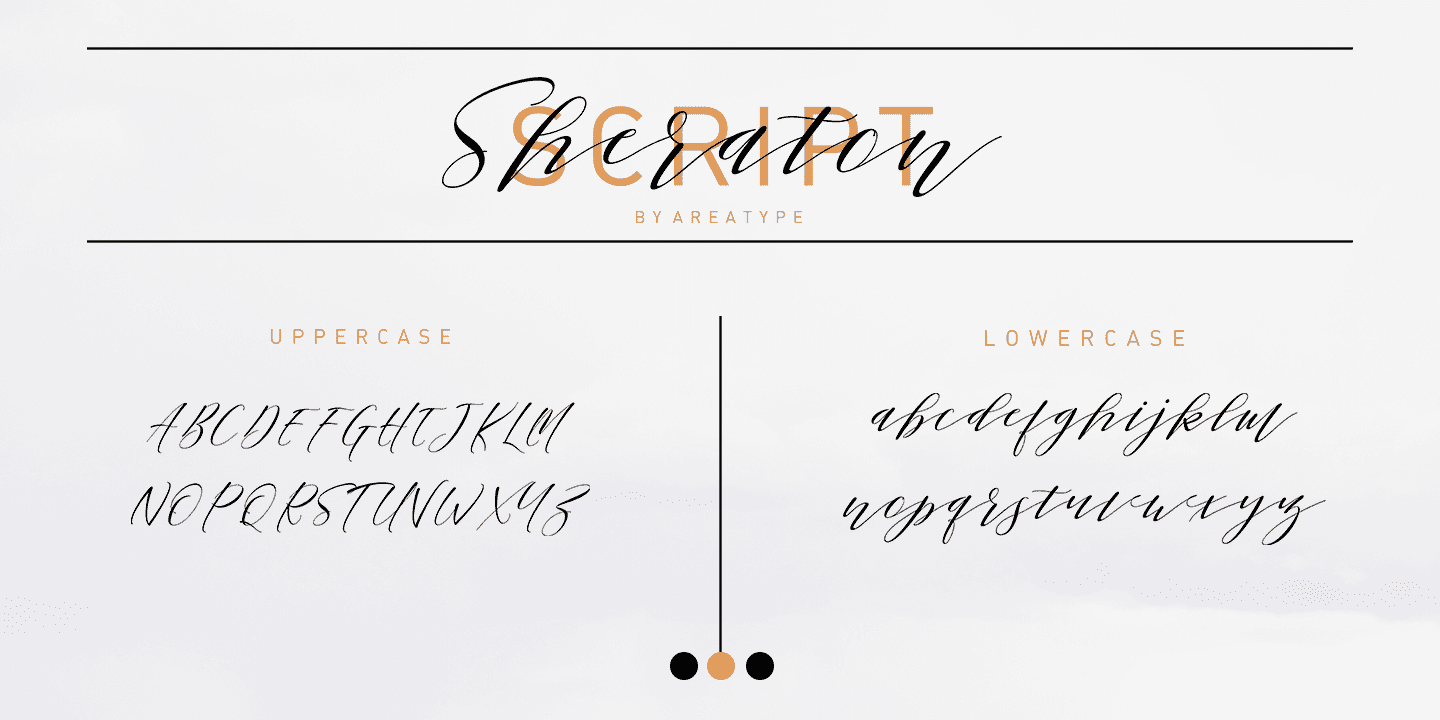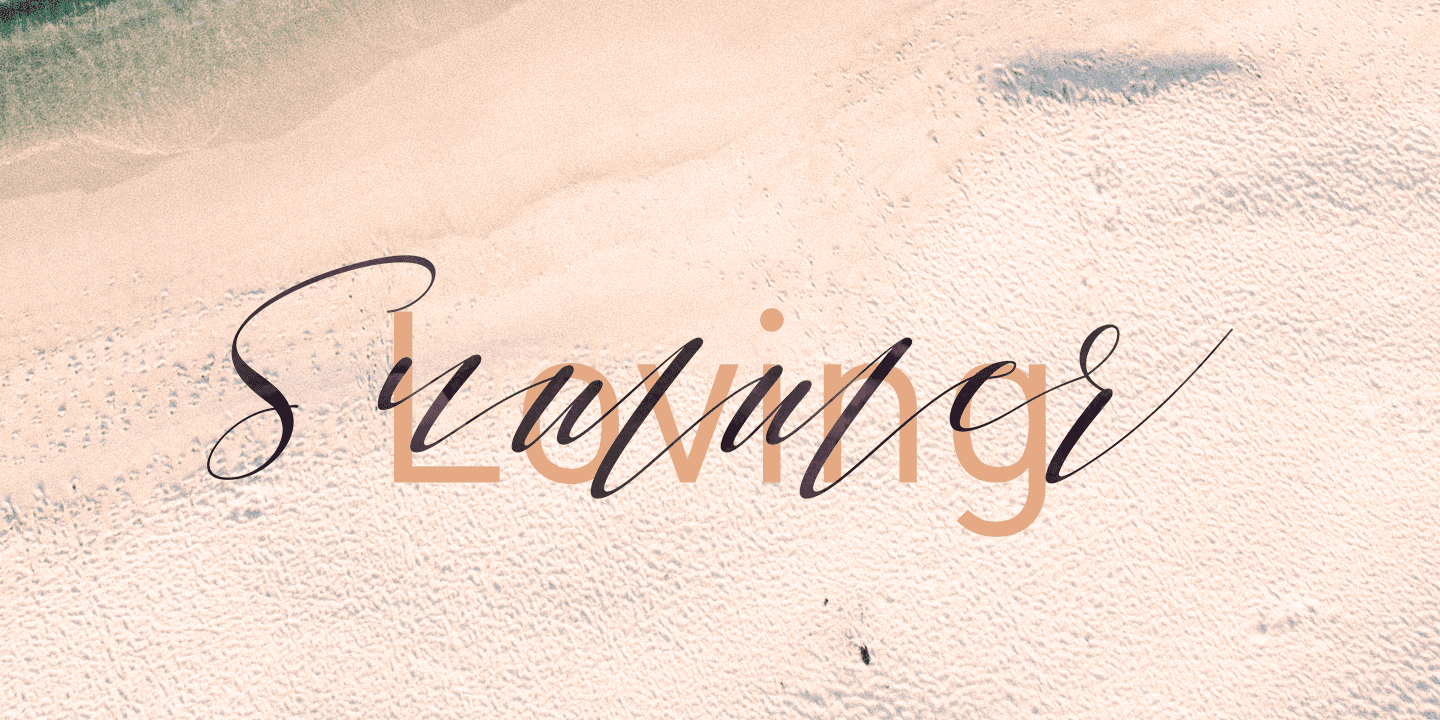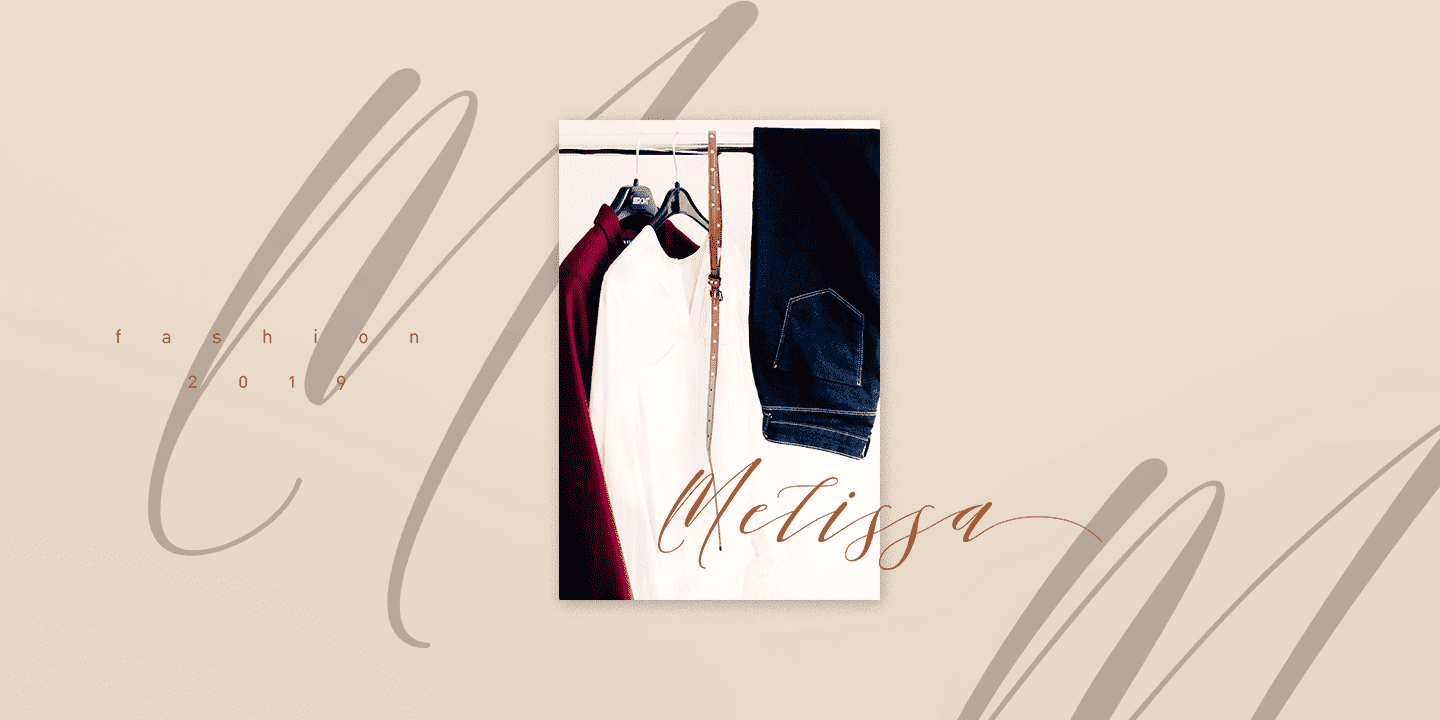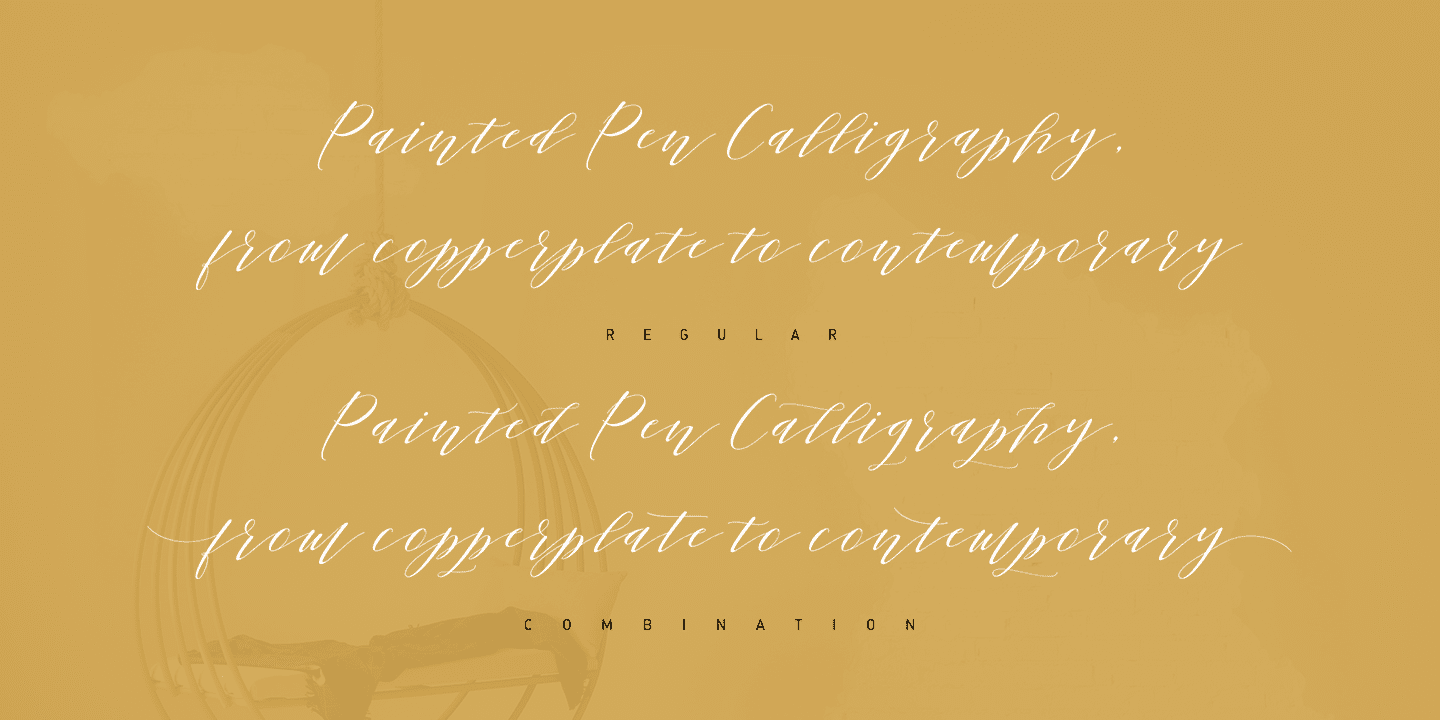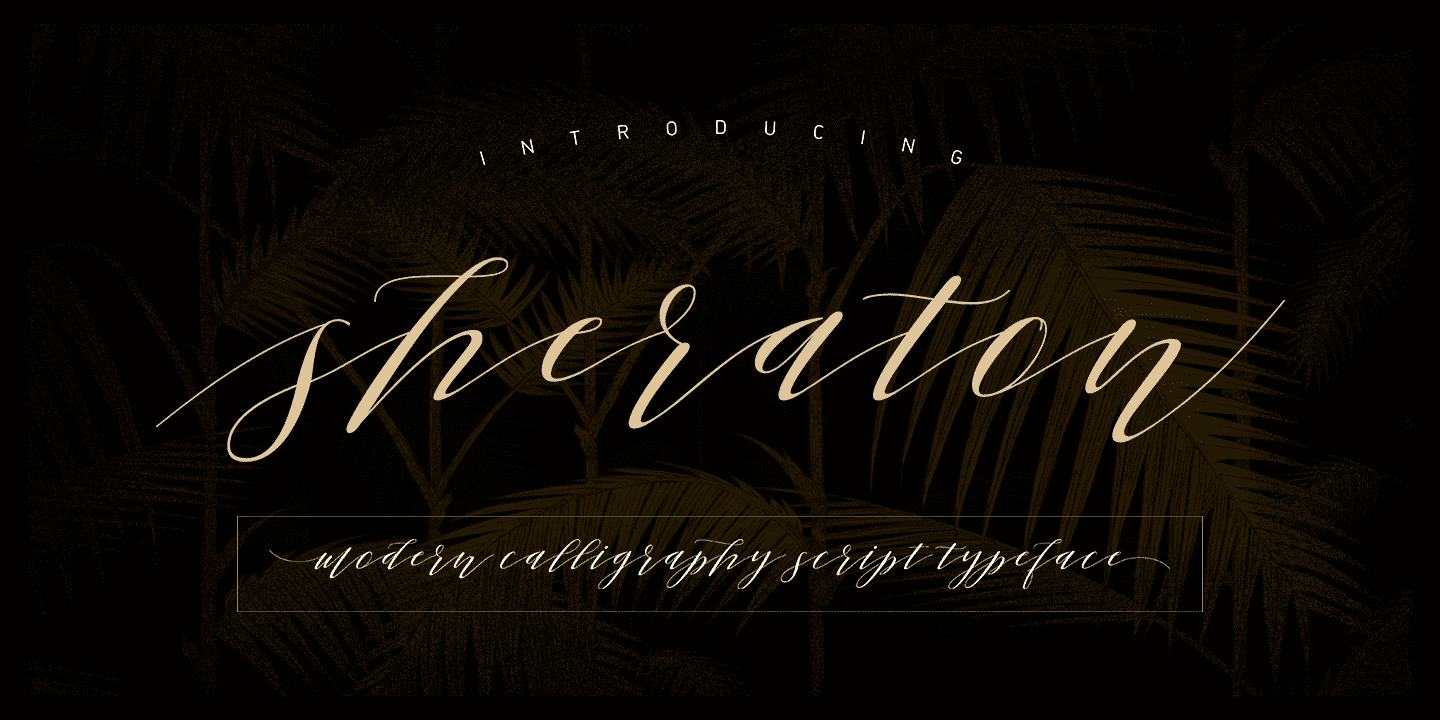
Sheraton Script (1 font)
From Area Type Studio
Can be used for various purposes such as logos, wedding invitation, heading, t-shirt, letterhead, signage, labels, news, posters, badges etc.